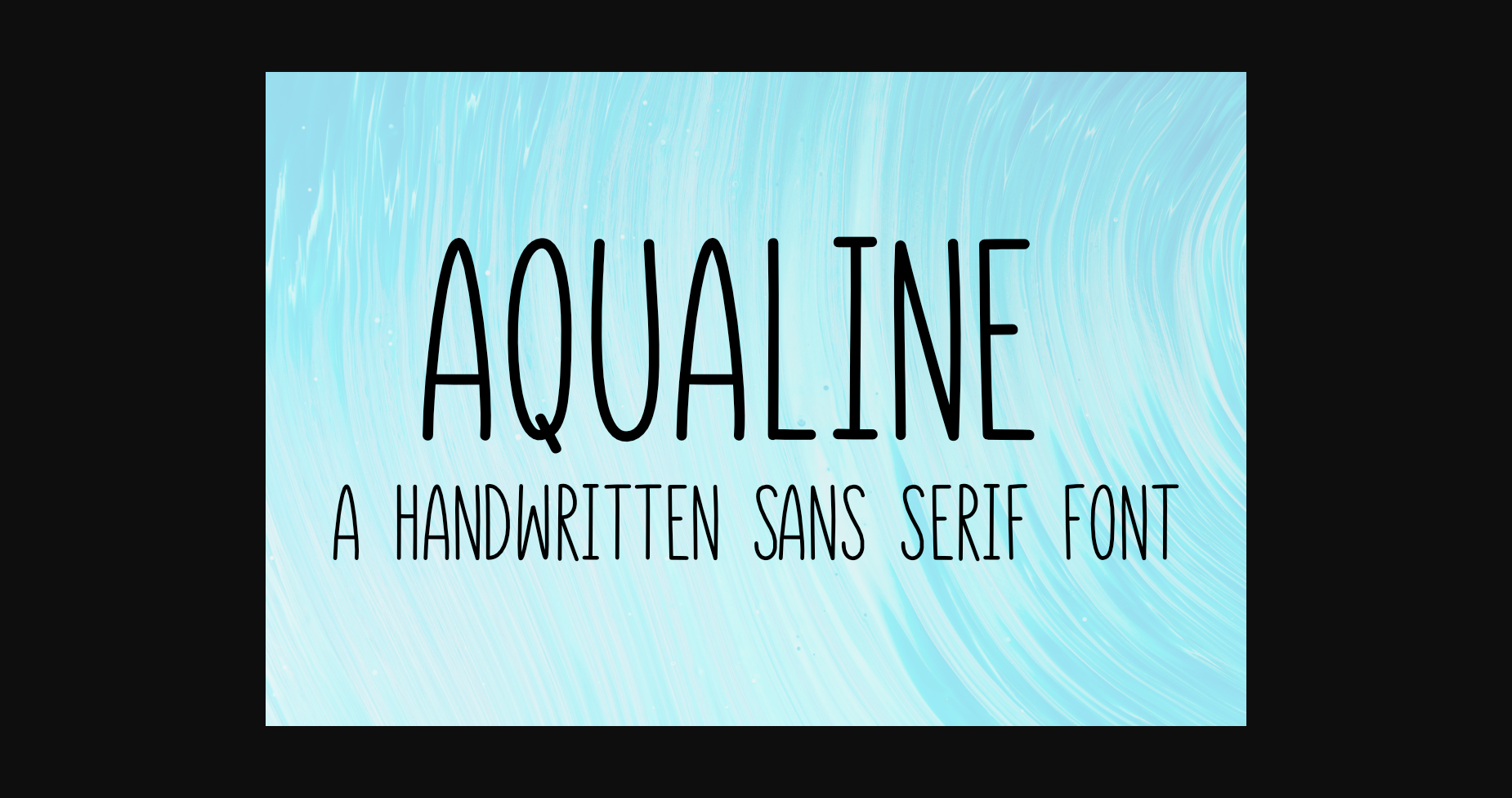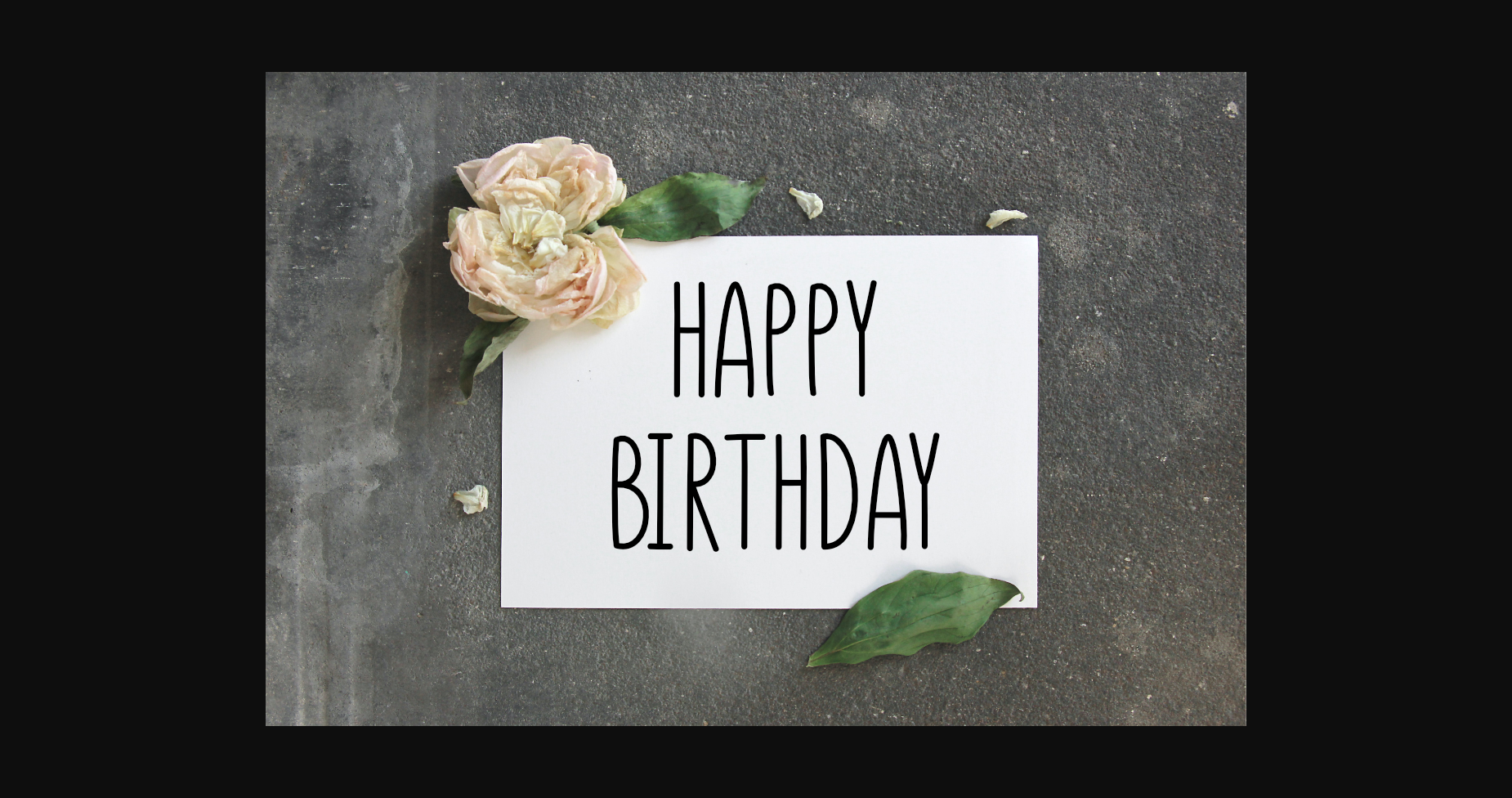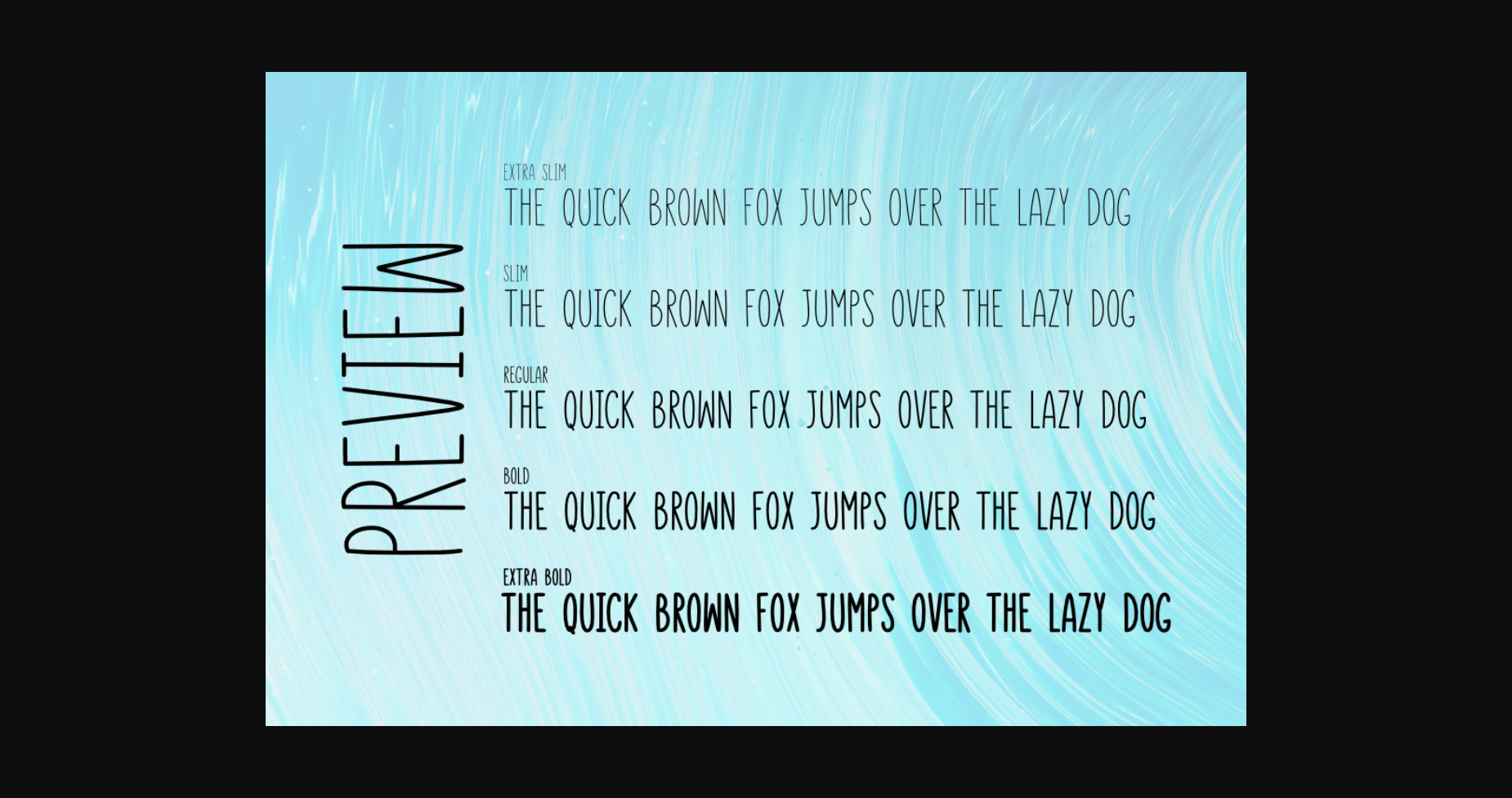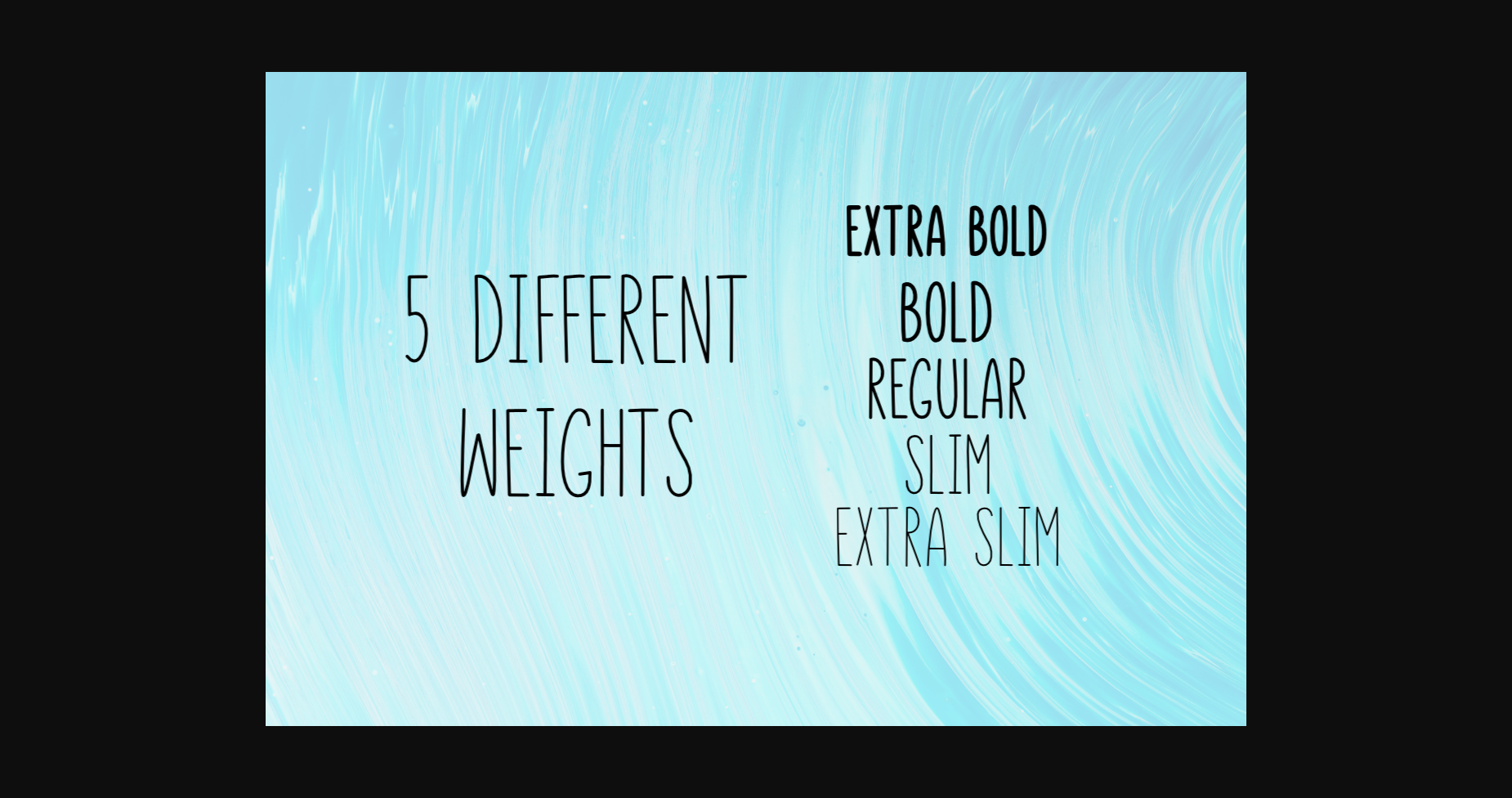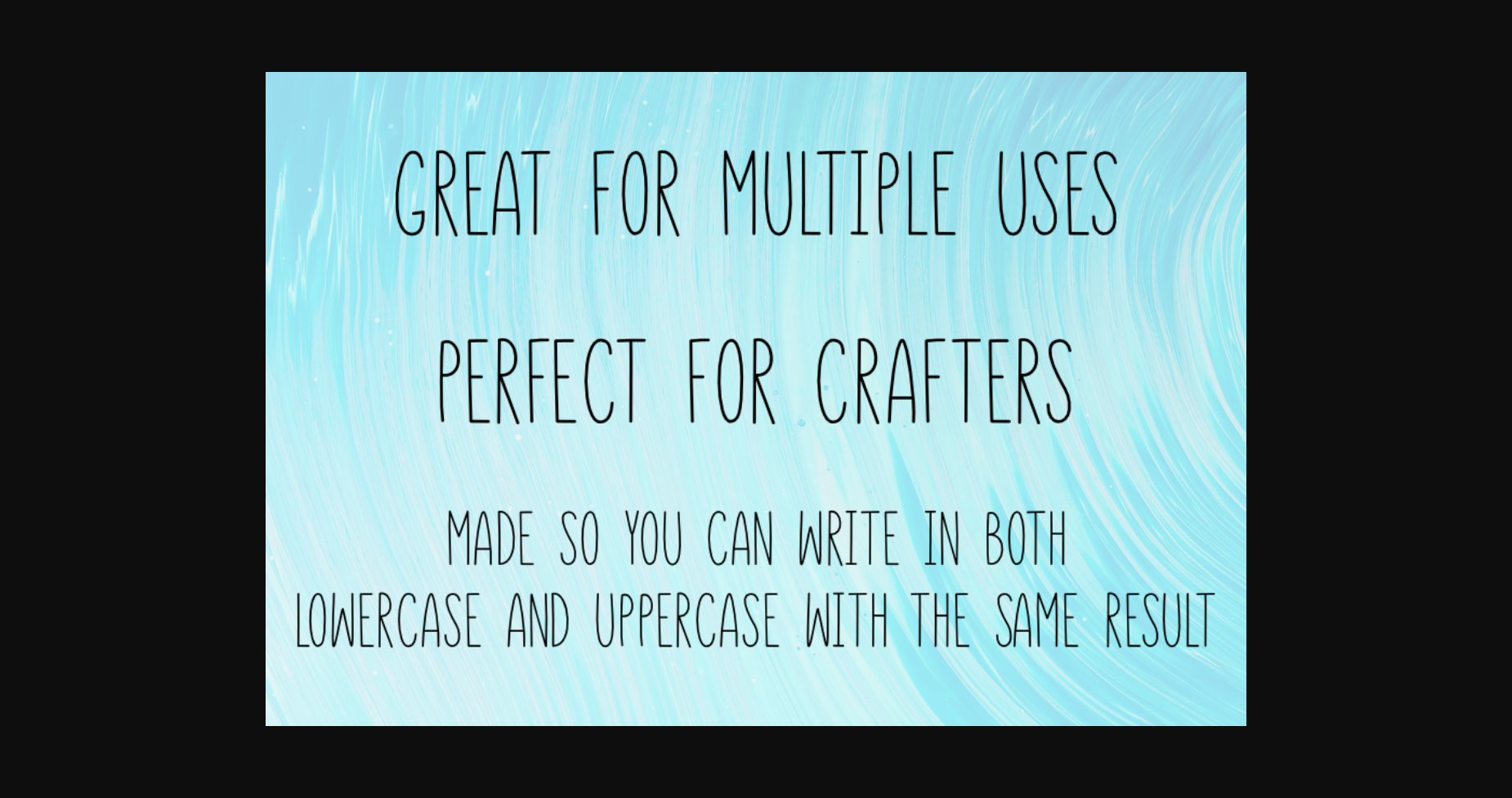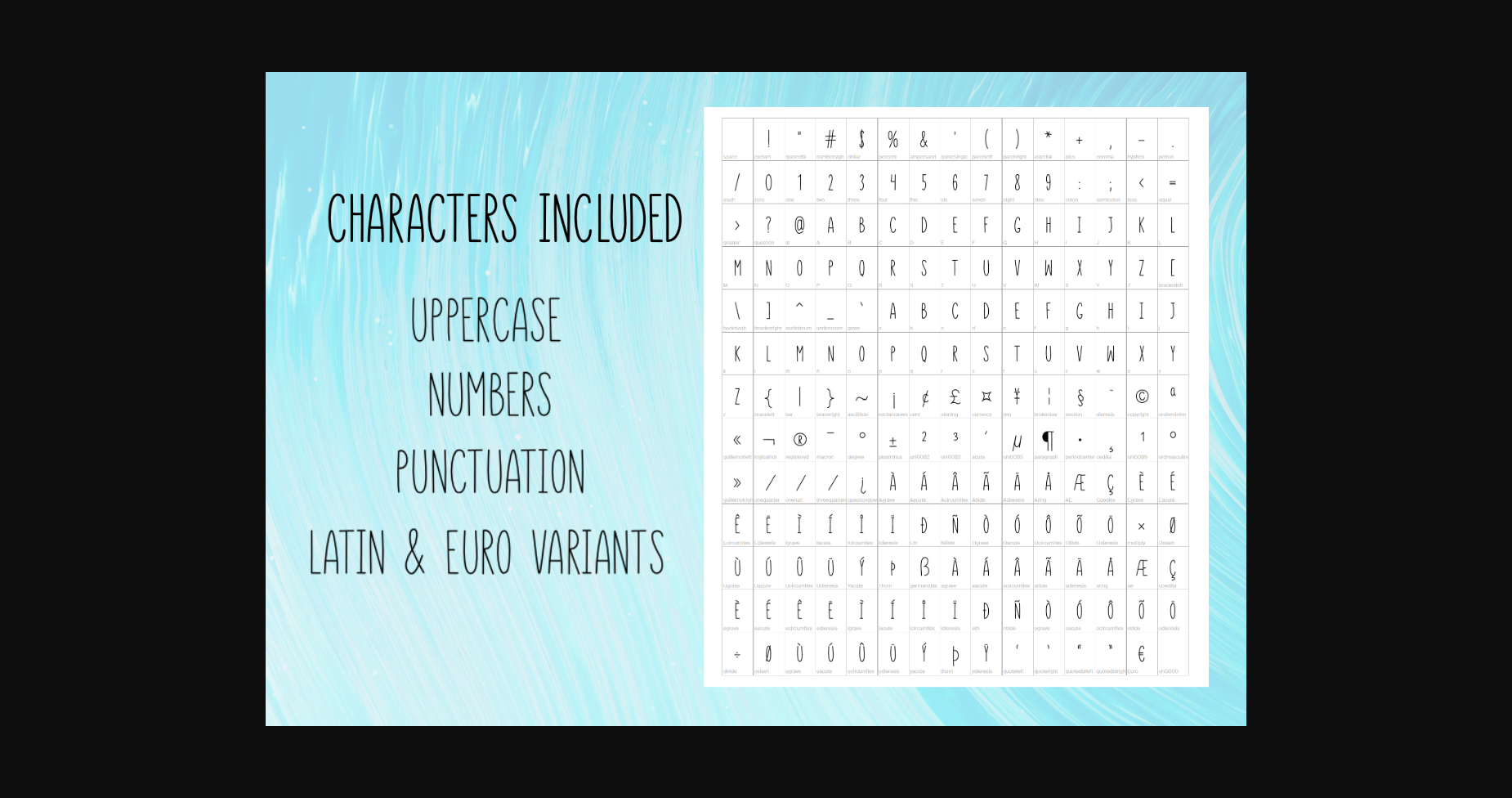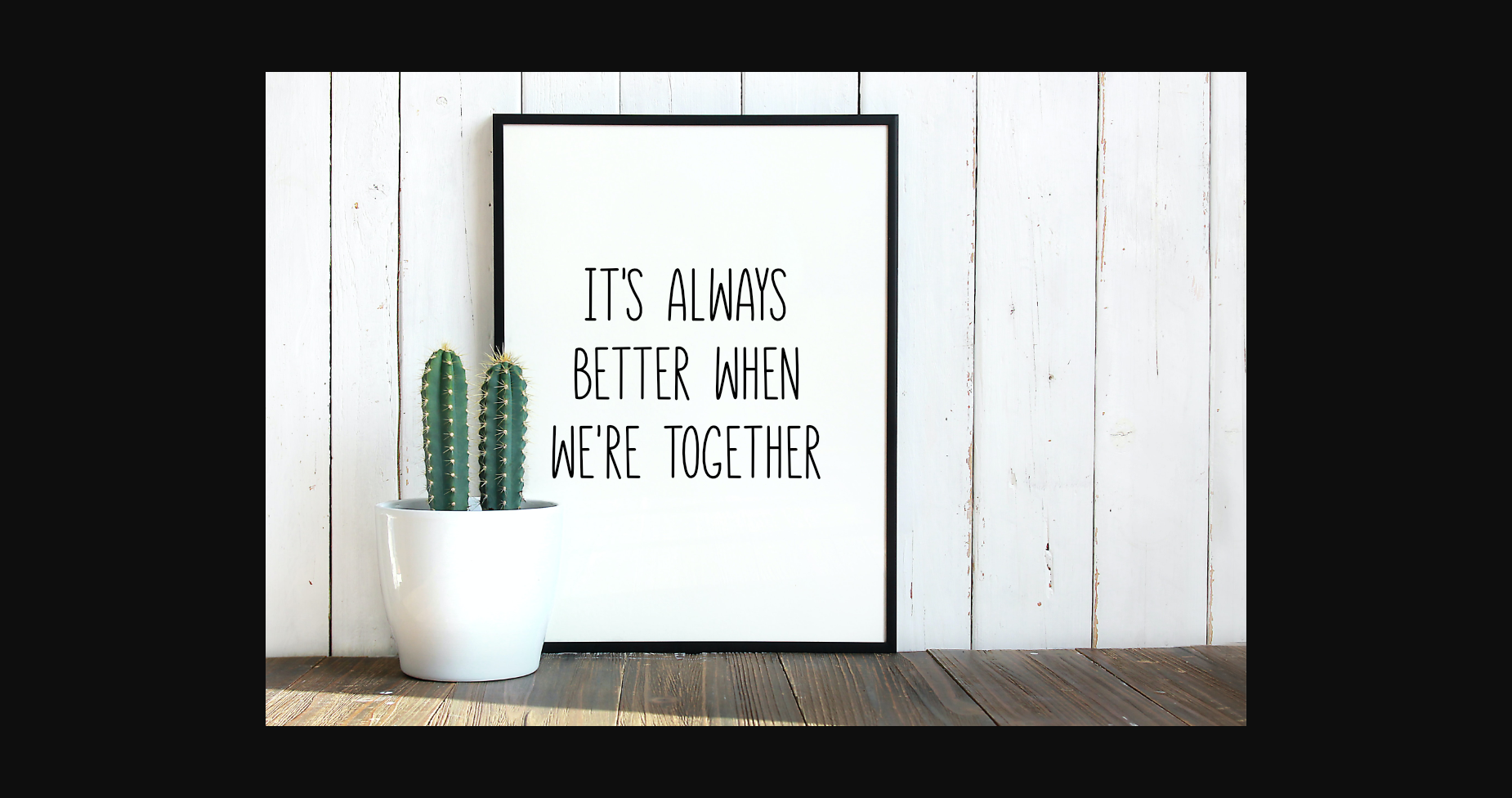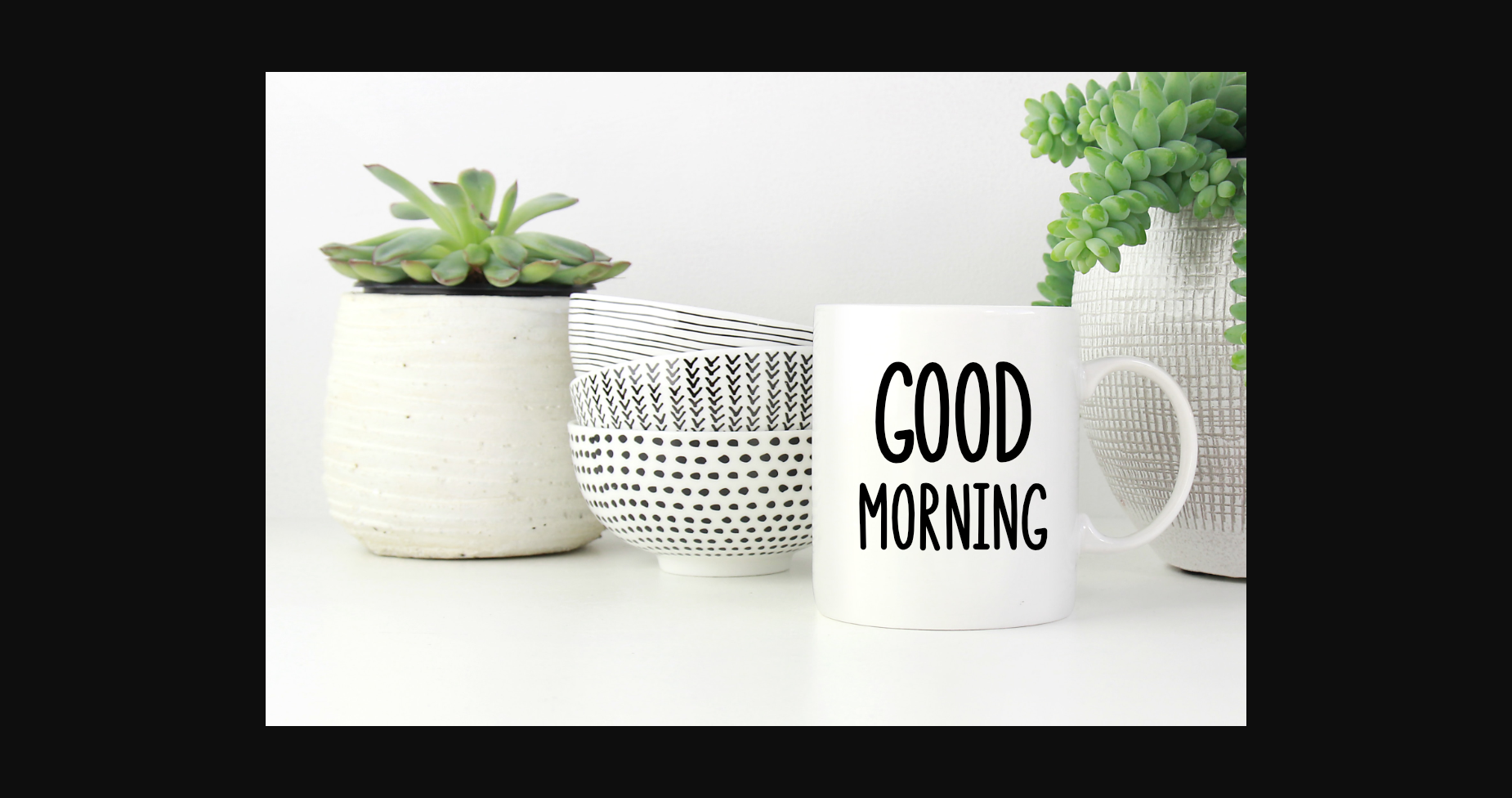
Aqualine is a tall and thin sans serif font. Simple but with a strong visual effect, this font will instantly make your creation more appealing than any other